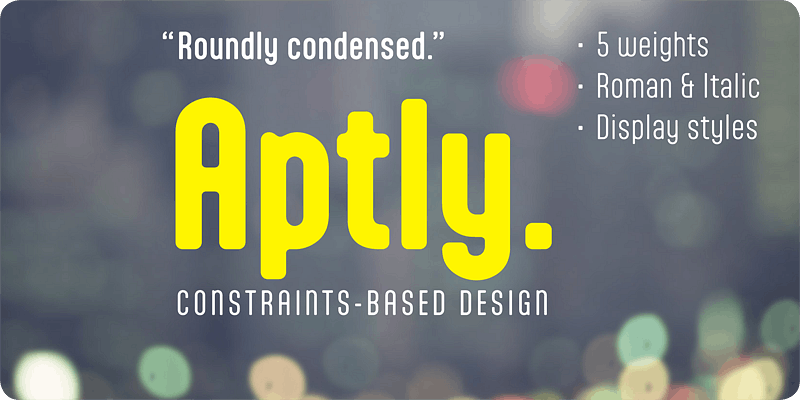
Aptly Font Free Download
Aptly Font Free Download is a clean and modern sans-serif typeface with a minimalistic design that brings clarity and sophistication to any project. With its geometric shapes, balanced proportions, and neutral style, this font is perfect for a wide range of applications, including branding, web design, editorial layouts, and tech-related projects.
Aptly’s versatility makes it suitable for both headlines and body text, offering excellent legibility at various sizes. It integrates smoothly with design software like Adobe Illustrator, Figma, Canva, and Photoshop, making it a great choice for both print and digital formats.